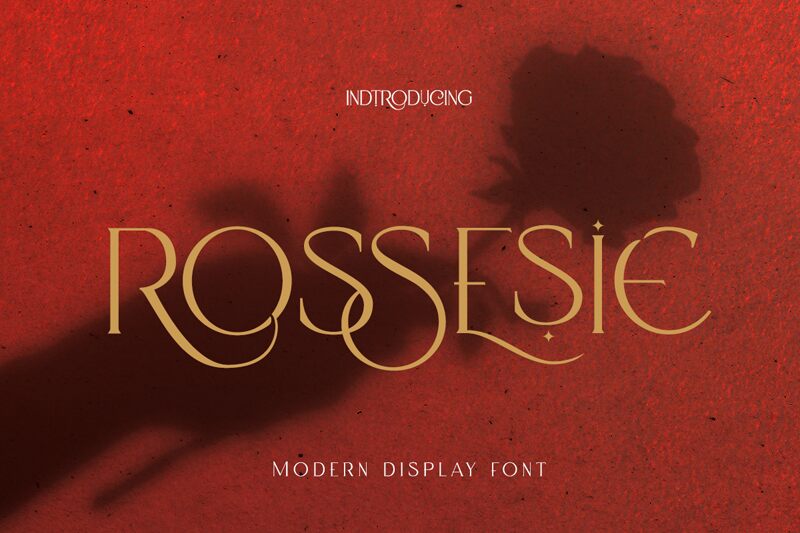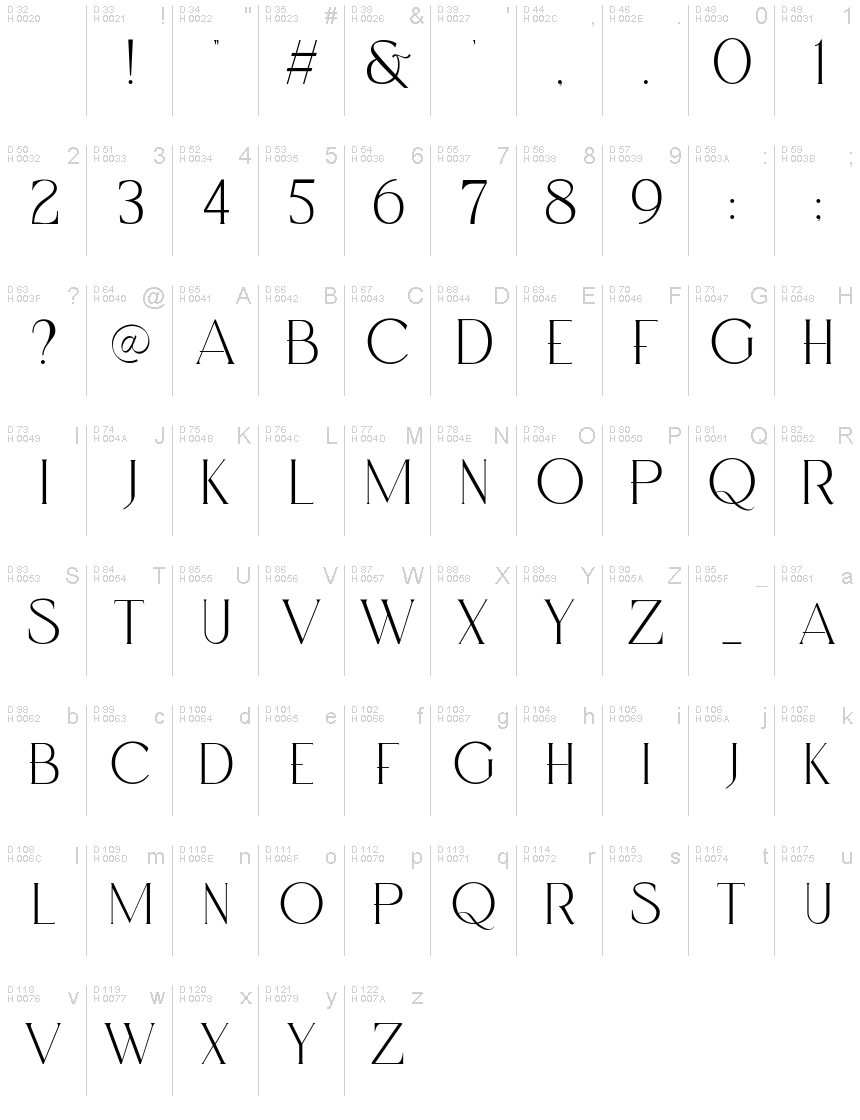
Rossesie
Rossesie, crafted by Mocha Frappuccino, stands out with its elegant serif style that brings a modern twist to the timeless appeal of classic typography. Each letter in Rossesie exudes sophistication, from the sharp serifs that lend a crisp edge to the design, to the graceful curves that soften and balance the overall aesthetic. The font's bold presence commands attention without overwhelming, making it an ideal choice for designers looking to impart a sense of luxury and professionalism.
Ideal for branding and editorial work where distinction is key, Rossesie's character shines in contexts requiring finesse and subtlety. Its versatility extends to print media such as book titles and magazine spreads, while also maintaining an impressive readability in digital formats. Rossesie offers a harmonious blend of tradition and contemporary design sensibilities—perfect for crafting an image of elegance and prestige.